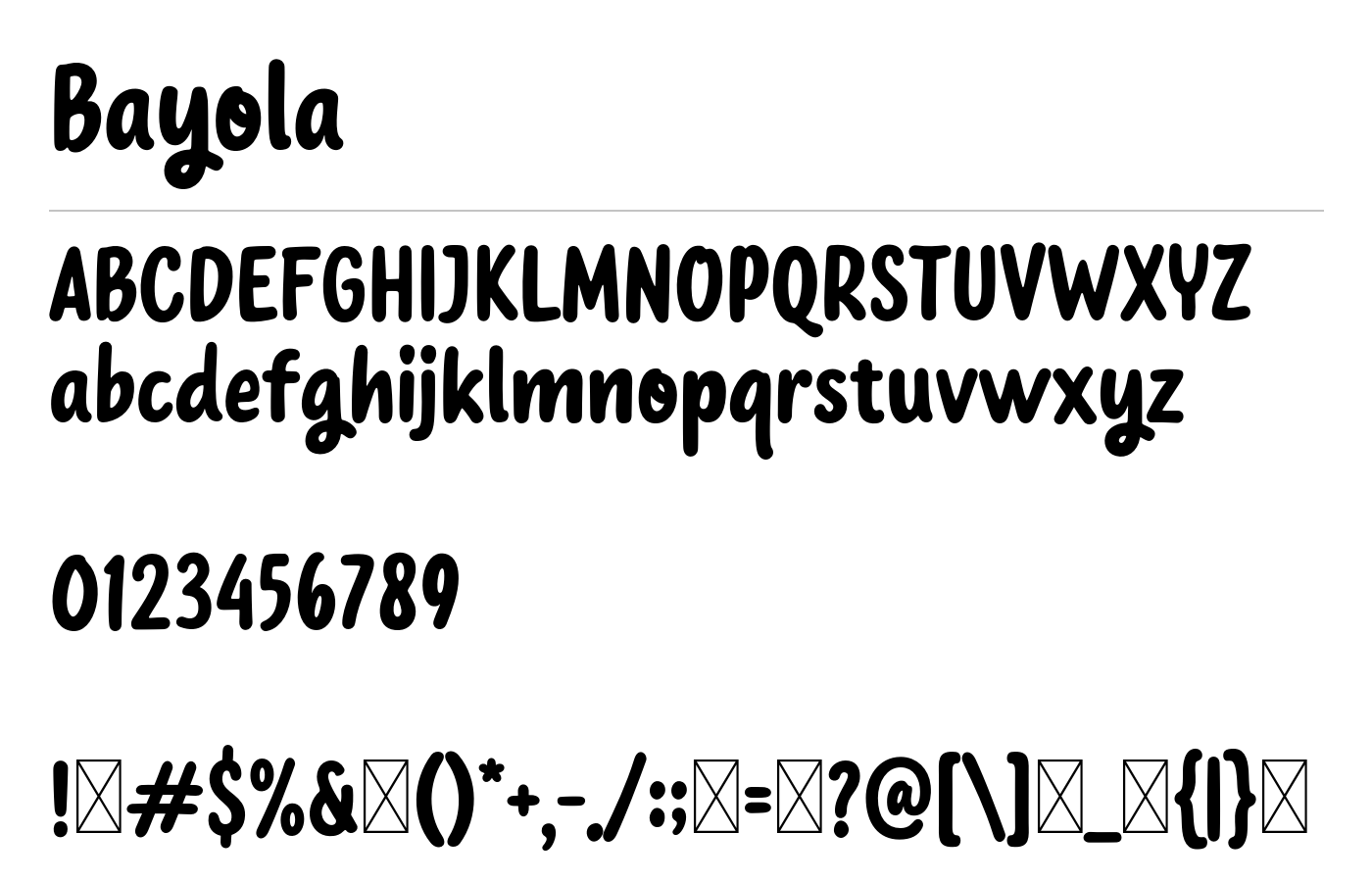
Bayola is a playful, rounded sans serif font with a bold weight and friendly character. Its smooth, slightly condensed letterforms and casual style make it perfect for informal branding, children’s products, and eye-catching headlines. This font brings an approachable, fun vibe while maintaining clear readability.
Bayola Font
About Bayola Font
| Font family | Bayola Font |
| Designer | Zamroni Hamzah |